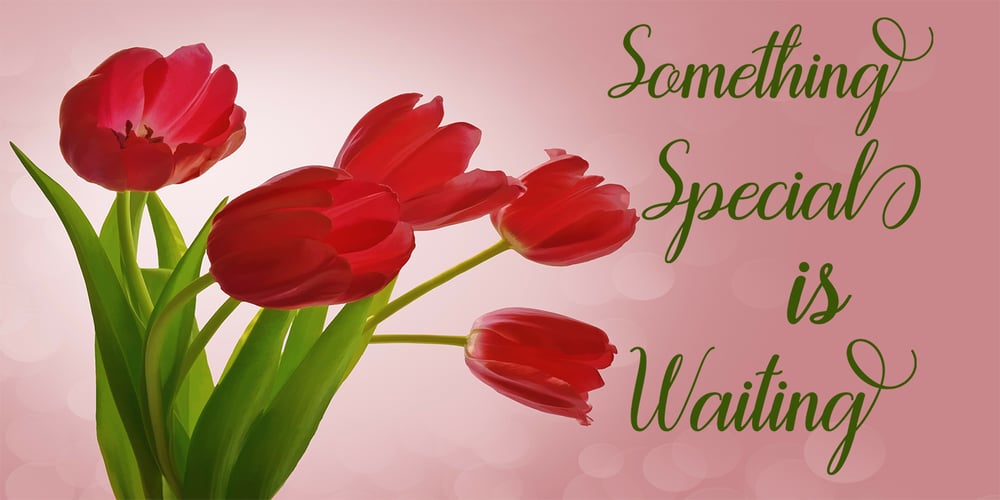
Encounter
Encounter font
Encounter Font Family was designed by Saiful and published by Encolab. Encounter contains 1 styles and family package options. Encounter is a modern handwritten font with handwriting suitable for logos, product packaging, branding, headlines, labels, book covers, posters, quotes and more.This font contains all lowercase letters, also comes with ligatures and unique and beautiful alternatives as well as international support for most western languages. How to access all of the alternate characters: https://www.youtube.com/watch?v=XzwjMkbB-wQ Encounter is coded with PUA Unicode, which allows full access to all the extra characters without having special designing software. Mac users can use Font Book , and Windows users can use Character Map to view and copy any of the extra characters to paste into your favorite text editor/app.How to access all alternative characters, using Windows Character Map with Photoshop: https://www.youtube.com/watch?v=Go9vacoYmBw